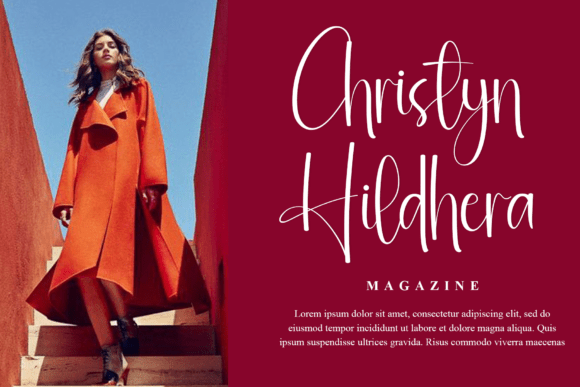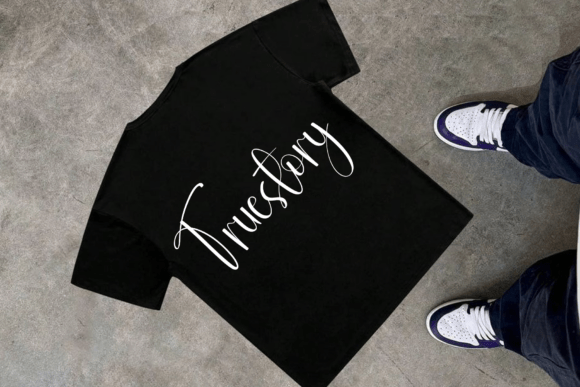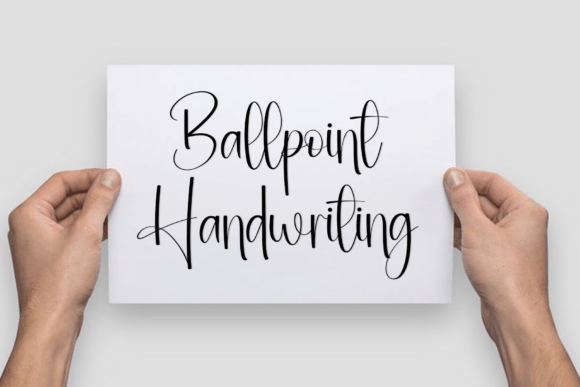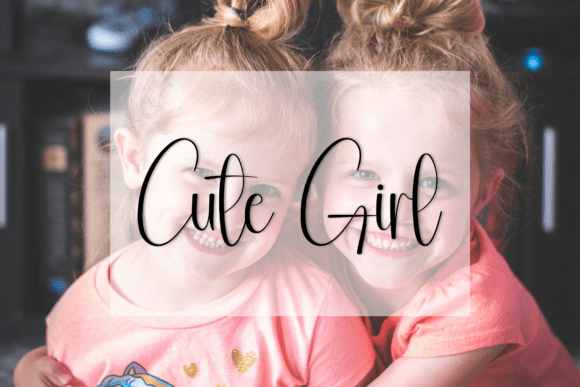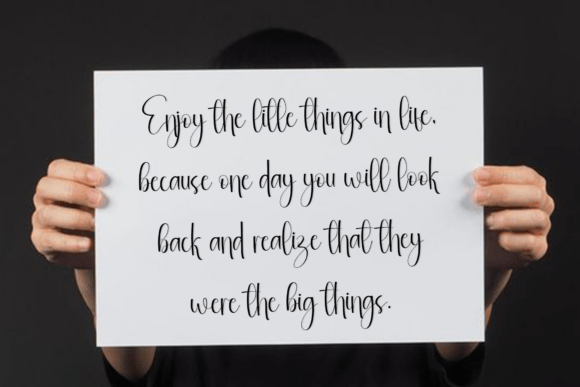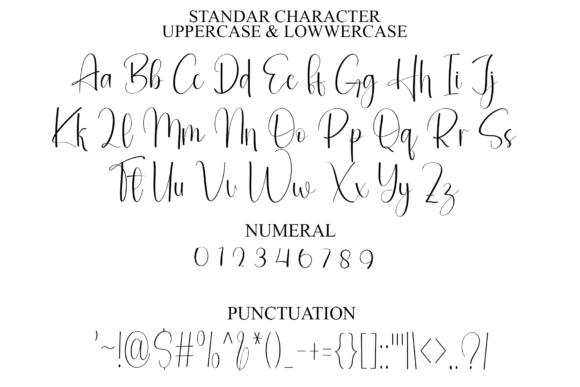
Cinematic Font: Adding a Touch of Holiday Magic to Your Designs
The holiday season is upon us, and with it comes the desire to create festive and merry designs that capture the spirit of the season. One of the key elements in creating such designs is the choice of typography. This is where the Cinematic Font comes in – a decorative typeface that adds a touch of enchantment to your designs. In this article, we’ll take a closer look at the Cinematic Font, its features, and how you can use it to bring a cheerful and nostalgic ambiance to your words.
What is Cinematic Font?
Cinematic Font is a festive and merry typeface that is perfect for holiday-themed projects. Its decorative elements and whimsical flair make it an ideal choice for designers and crafters looking to add a touch of magic to their designs. Whether you’re creating greeting cards, gift tags, or holiday-themed projects, this font is sure to bring a smile to your face and a touch of nostalgia to your words.
Key Features of Cinematic Font
So, what makes Cinematic Font so special? Here are some of its key features:
- Decorative Elements: Cinematic Font features decorative elements that add a touch of festivity to your designs. From holly leaves to snowflakes, these elements are sure to make your designs stand out.
- Whimsical Flair: This font has a whimsical flair that makes it perfect for holiday-themed projects. Its playful and cheerful design is sure to bring a smile to your face.
- PUA Encoded: Cinematic Font is PUA encoded, which means you can access all of the amazing glyphs and ligatures with ease. This makes it easy to use and customize the font to suit your needs.
Uses of Cinematic Font
Cinematic Font is a versatile typeface that can be used in a variety of ways. Here are some of the most popular uses of this font:
- Greeting Cards: Cinematic Font is perfect for creating festive and merry greeting cards. Whether you’re creating Christmas cards, Hanukkah cards, or New Year’s cards, this font is sure to add a touch of magic to your designs.
- Gift Tags: Add a personal touch to your gifts with Cinematic Font. This font is perfect for creating gift tags that are both festive and functional.
- Holiday-Themed Projects: Cinematic Font is ideal for holiday-themed projects, such as creating festive posters, flyers, or social media graphics.
Tips for Using Cinematic Font
Here are some tips for using Cinematic Font in your designs:
- Experiment with Different Sizes: Cinematic Font looks great in a variety of sizes. Experiment with different sizes to find the one that works best for your design.
- Pair with Other Fonts: Cinematic Font pairs well with other fonts. Try pairing it with a sans-serif font for a modern look or with a script font for a more elegant look.
- Use Decorative Elements: Don’t be afraid to use the decorative elements in Cinematic Font to add a touch of festivity to your designs.
Cinematic Font is a festive and merry typeface that is perfect for holiday-themed projects. Its decorative elements and whimsical flair make it an ideal choice for designers and crafters looking to add a touch of magic to their designs. With its PUA encoding, you can access all of the amazing glyphs and ligatures with ease. Whether you’re creating greeting cards, gift tags, or holiday-themed projects, Cinematic Font is sure to bring a cheerful and nostalgic ambiance to your words. So, why not give it a try and let your typography shine with the magic of Beautiful Font?
In conclusion, Cinematic Font is a must-have for designers and crafters looking to create festive and merry designs. Its unique features, versatility, and ease of use make it an ideal choice for holiday-themed projects. So, go ahead and get creative with Cinematic Font – your designs are sure to stand out!